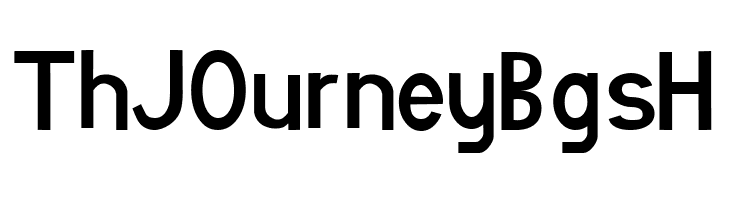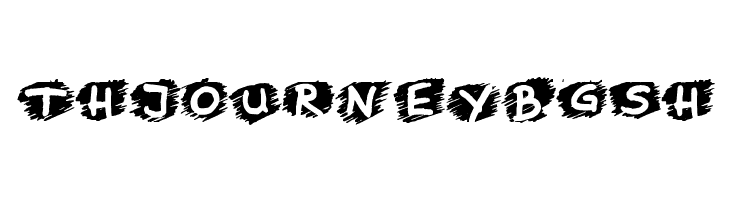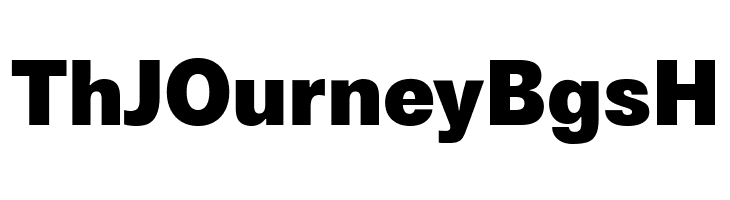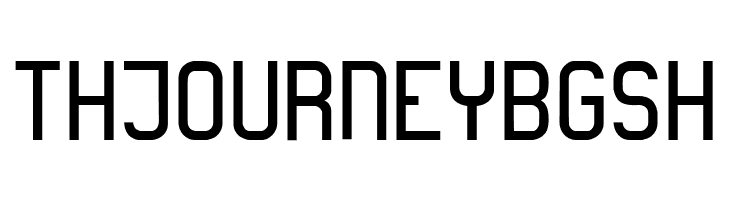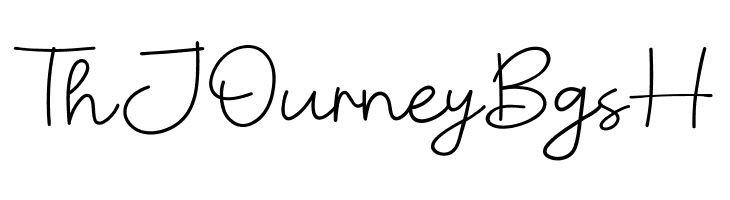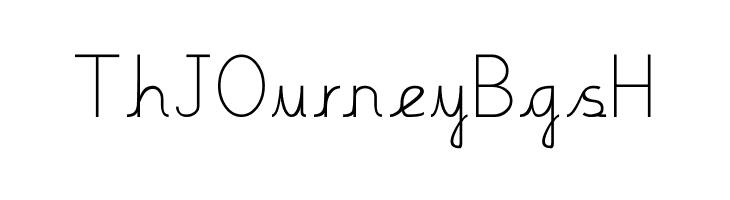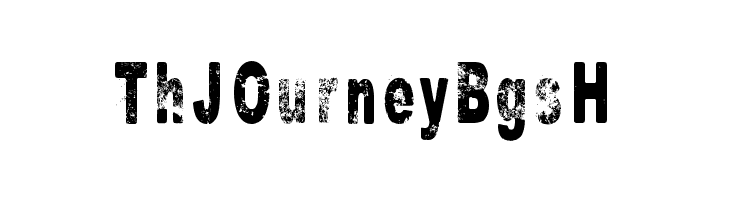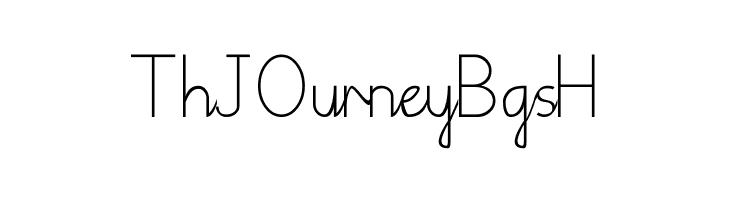
A modern, geometric font with bold, structured characters and consistent stroke widths.
A bold, distressed font with a textured, grunge effect.
A bold, modern sans-serif font with geometric influences and excellent readability.
A playful, handwritten font with smooth, flowing lines and a casual aesthetic.
A bold, heavy sans-serif typeface with a modern and impactful design.
A clean, minimalist sans-serif font with consistent stroke width.
A clean and modern sans-serif font with consistent stroke width and balanced spacing.